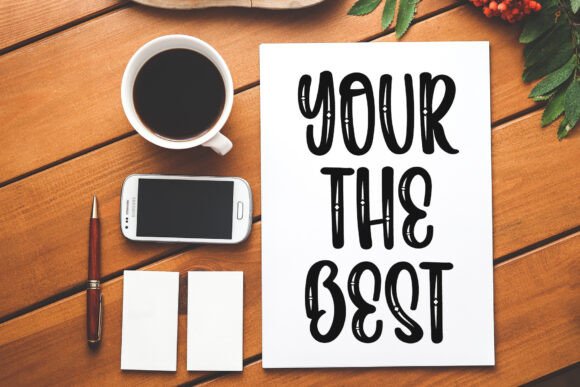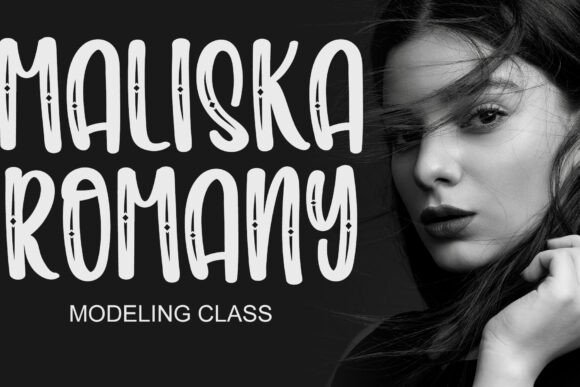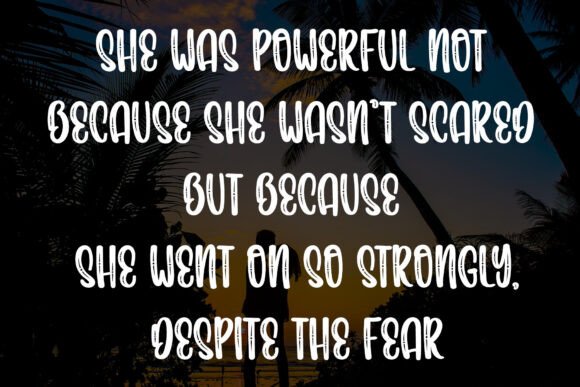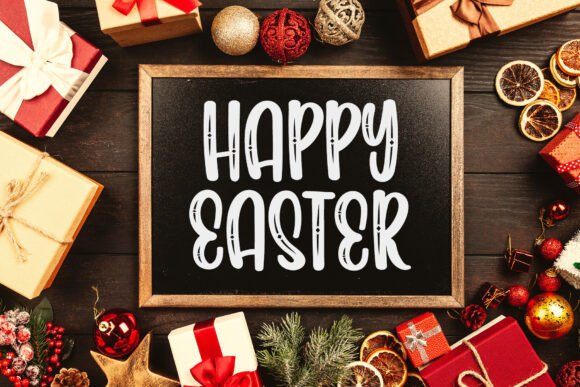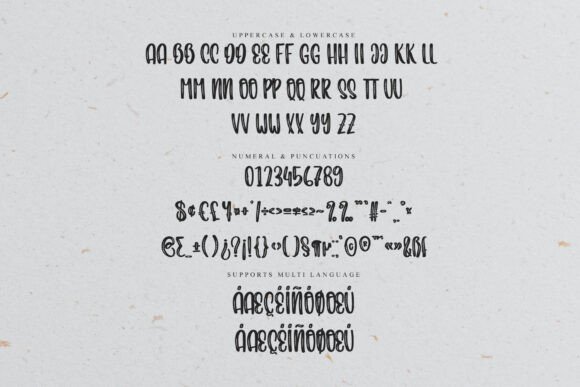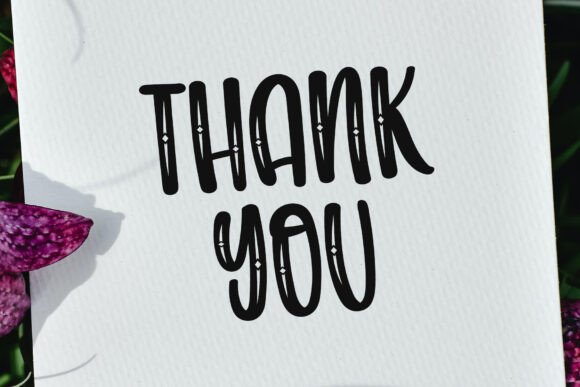
Unleash the Whimsy: Discover the Delightful Black Magic Font
Are you tired of using the same old fonts in your designs? Do you want to add a burst of joy and energy to your projects? Look no further than the Black Magic Font, a sweet and playful brush font that’s sure to captivate your audience. In this article, we’ll dive into the world of Black Magic, exploring its unique features, uses, and benefits for designers and crafters.
What is Black Magic Font?
Black Magic is a delightfully quirky, playful display font that’s as fun as it is eye-catching. With its bouncy, hand-painted brush strokes and sugary charm, this font is perfect for designs that need a touch of whimsy and personality. Whether you’re designing candy packaging, a playful logo, or a vibrant Instagram quote, Black Magic adds a deliciously whimsical touch that sets your designs apart.
Key Features of Black Magic Font
- Hand-painted brush strokes: Black Magic’s unique brush strokes give it a playful, organic feel that’s perfect for designs that need a personal touch.
- Sugary charm: This font’s sweet and charming personality makes it ideal for designs that require a touch of whimsy and fun.
- Playful display font: Black Magic is designed to make a statement, making it perfect for headings, titles, and other display text.
- Versatile: This font can be used for a wide range of designs, from packaging and logos to social media graphics and quotes.
Uses for Black Magic Font
Black Magic is a versatile font that can be used in a variety of design projects, including:
- Candy packaging: Add a touch of sweetness to your candy packaging with Black Magic’s playful, whimsical design.
- Playful logos: Create a fun and memorable logo for your business or brand with Black Magic’s unique brush strokes.
- Instagram quotes: Add a burst of energy and joy to your Instagram quotes with Black Magic’s sugary charm.
- Social media graphics: Use Black Magic to create eye-catching social media graphics that stand out from the crowd.
- Invitations and events: Add a touch of whimsy to your invitations and event materials with Black Magic’s playful design.
Benefits of Using Black Magic Font
So why should you choose Black Magic Font for your designs? Here are just a few benefits:
- Adds a touch of personality: Black Magic’s unique brush strokes and sugary charm add a touch of personality to your designs, setting them apart from the crowd.
- Increases engagement: The playful, whimsical design of Black Magic is sure to captivate your audience and increase engagement.
- Versatile: Black Magic can be used for a wide range of designs, making it a great addition to any designer’s toolkit.
- Easy to use: With its clean and simple design, Black Magic is easy to use and pairs well with a variety of other fonts and design elements.
Tips for Using Black Magic Font
Here are a few tips for getting the most out of Black Magic Font:
- Use it sparingly: Black Magic is a bold, eye-catching font, so use it sparingly to avoid overwhelming your design.
- Pair it with complementary fonts: Pair Black Magic with complementary fonts to create a unique and visually appealing design.
- Experiment with colors: Black Magic looks great in a variety of colors, so don’t be afraid to experiment and find the perfect hue for your design.
Black Magic Font is a sweet and playful brush font that’s sure to add a burst of joy and energy to your designs. With its unique brush strokes, sugary charm, and versatile design, this font is perfect for designers and crafters who want to create eye-catching and whimsical designs. Whether you’re designing candy packaging, a playful logo, or a vibrant Instagram quote, Black Magic is the perfect choice. So why wait? Unleash the whimsy and discover the delightful Black Magic Font today!